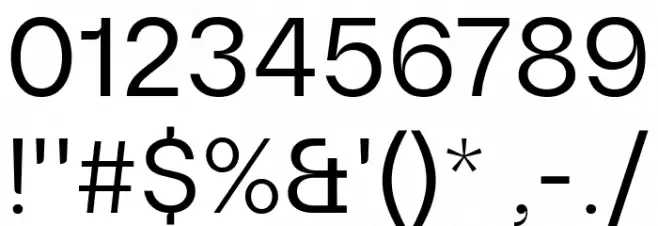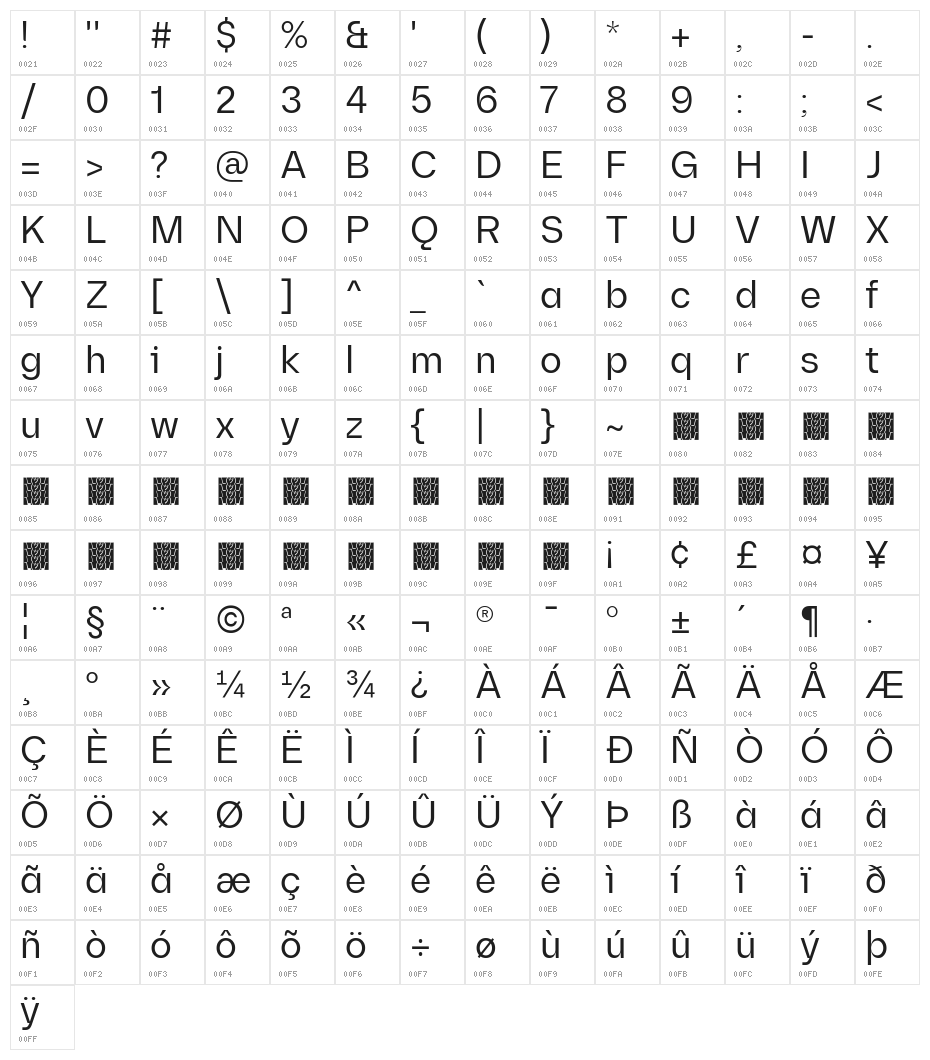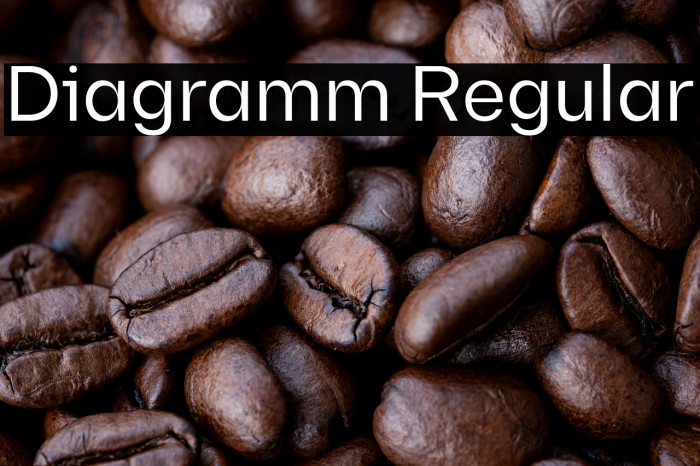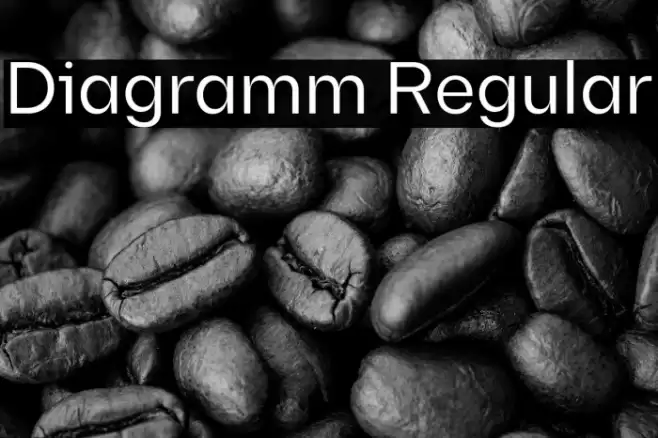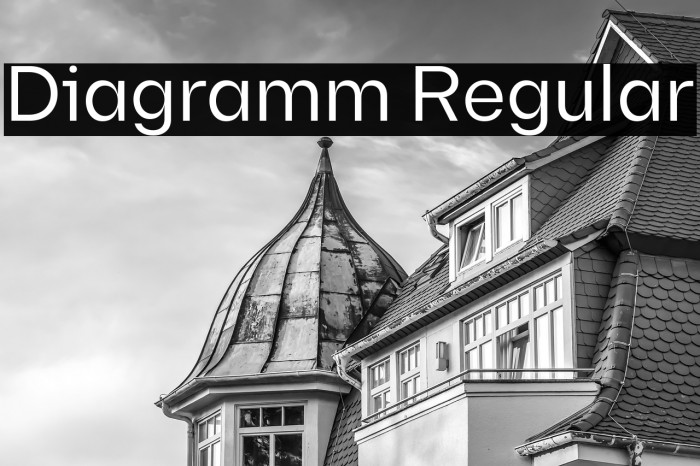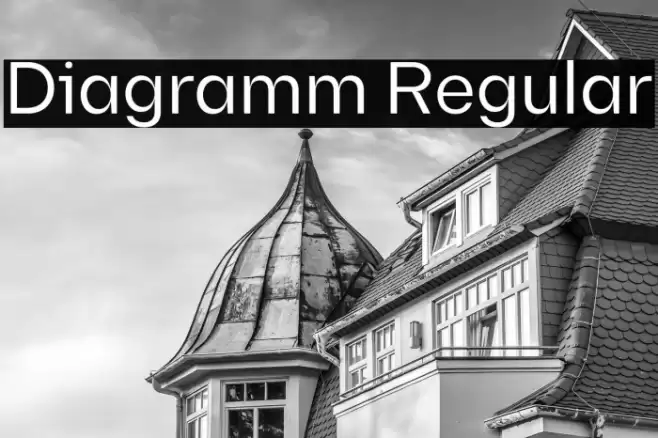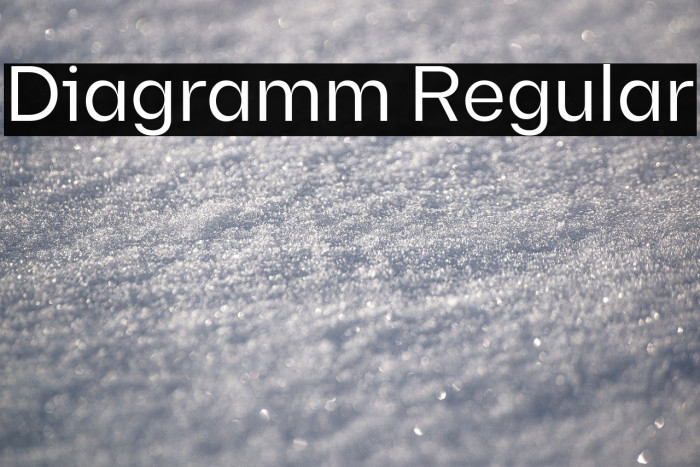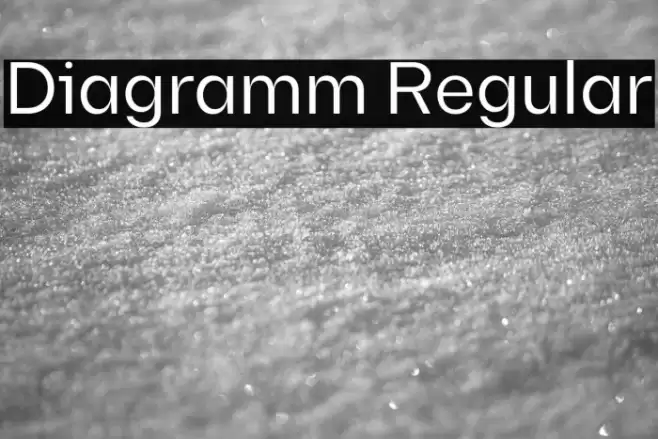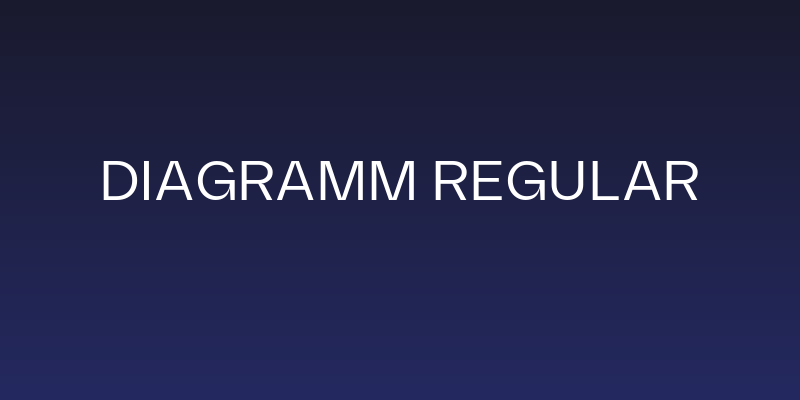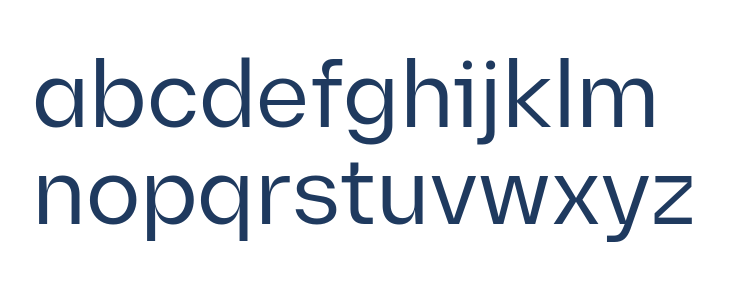
Diagramm Regular Font
Diagramm Regular Description
This font features a clean and modern sans-serif design, characterized by its geometric shapes and uniform stroke widths. The uppercase letters are bold and assertive, while the lowercase letters maintain a consistent height and spacing, ensuring readability. The numerals are straightforward and align well with the overall style, making them suitable for various applications. Special characters are clearly defined, adding versatility to the font's usage. The overall appearance is sleek and professional, making it ideal for contemporary design projects.
| Proposed Projects | Ideal for corporate branding, digital interfaces, editorial design, and signage. |